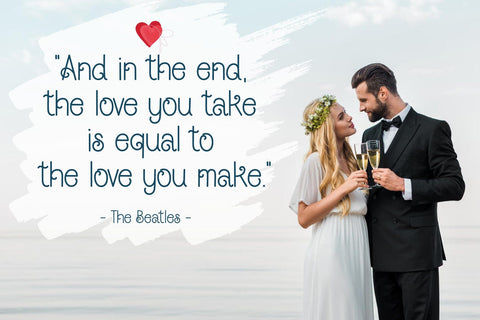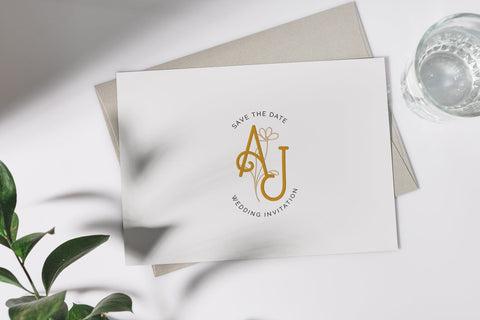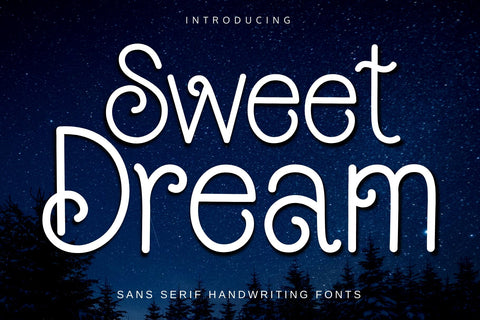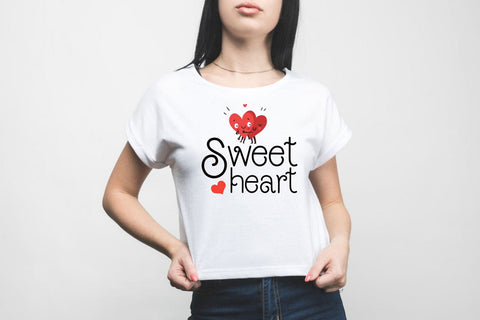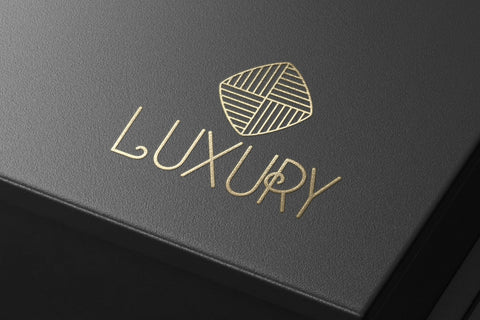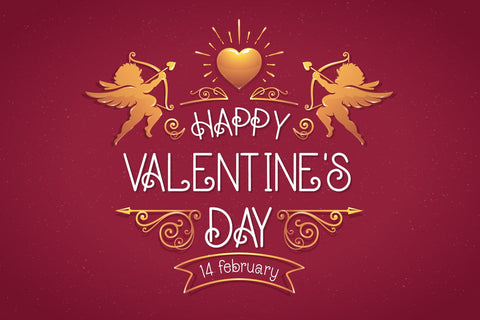
Sweet Dream Font
Sweet Dream is a stylish and vintage-looking display font. It can be used for various projects, such as blog posts, logos, branding, ads, invitations, greeting cards, planners, photo albums, decorations, and much more.